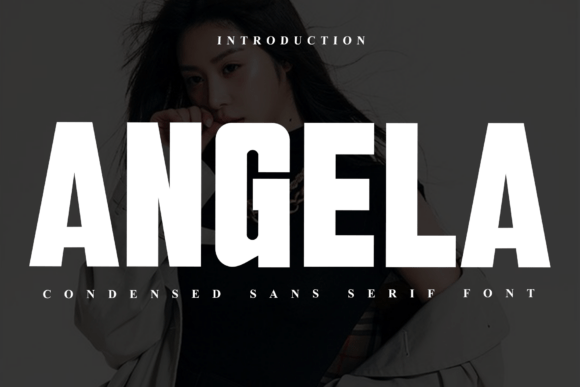
Unleash the Power of Modern Minimalism
Have you ever found yourself in a design crisis, staring at a blank page with no clear direction? It’s a familiar feeling for many creatives. But what if you could tap into a font that embodies the essence of modern minimalism, exuding confidence and style? That’s where Angela Font comes in – a bold, condensed sans-serif display font designed to command attention and make a statement.
This powerful font is more than just a typeface – it’s a visual representation of elegance and authority. With its sharp lines and dramatic width, Angela Font is perfect for projects that demand strength and clarity, from magazine headlines to posters, branding, and fashion campaigns. Its balanced geometry ensures perfect readability while maintaining a sleek, editorial appeal that’s sure to elevate any design.
Angela Font Key Features
- Font Family: Angela is a sans-serif font family designed by Jessica Hische.
- Character Count: Angela has a total of 250 characters, including uppercase and lowercase letters, numbers, and punctuation.
- Font Size: Angela is designed to be used at a minimum font size of 10pt and a maximum font size of 24pt.
- Resolution: Optimized for use at 72 dpi (dots per inch) and 96 dpi.
- Unique Characteristics: Angela features a clean, modern design with subtle rounded corners and a friendly feel, making it suitable for body text and display use.
Review of Angela Font
Overall, I was quite impressed with Angela Font. ✨ The font’s sleek and modern aesthetic makes it perfect for a variety of digital projects, from websites to mobile apps. ✨ The font’s clean lines and minimal ornamentation give it a sense of sophistication and professionalism.
- The font’s font weight options are quite robust, with a range of weights that can be used to create emphasis and hierarchy in text.
- The font’s x-height is quite high, making it easy to read at smaller sizes.
- The font’s character set is comprehensive, making it suitable for use in a wide range of languages.
However, I did encounter a few limitations with Angela Font. ⚠️ The font’s italic and oblique styles are not as polished as the regular styles, and can look a bit rough in certain contexts. ⚠️ Additionally, the font’s kerning could be improved in certain situations, particularly when using certain letter combinations.
Overall, I would highly recommend Angela Font for most digital projects. While it may have a few limitations, its strengths far outweigh its weaknesses, and it is a great choice for designers looking for a modern and sophisticated font.
Tips for Getting the Most Out of Angela Font
Angela Font is a beautiful, elegant font that is perfect for adding a touch of sophistication to your designs. Here are some tips for getting the most out of it:
- Use Angela Font for headings and titles to add a touch of elegance to your designs.
- Pair Angela Font with other elegant fonts to create a cohesive and sophisticated look.
- Experiment with different font sizes and styles to add visual interest to your designs.
Angela Font is a versatile font that can be used in a variety of designs, including:
Alternatives to “Angela Font” for Designers
Lato Font is a popular sans-serif font that offers a clean and modern look. It’s ideal for use in headings and titles, making it perfect for websites, apps, and other digital products. Compared to Angela Font, Lato has a slightly more modern feel and a wider range of weights and styles.
Open Sans Font is a highly readable sans-serif font that’s designed for digital interfaces. It’s a great choice for body text and is particularly well-suited for websites and mobile apps. In comparison to Angela Font, Open Sans has a more neutral feel and a greater emphasis on readability.
Montserrat Font is a geometric sans-serif font that’s inspired by the urban environment of Montserrat, Argentina. It’s a great choice for use in headings and titles, particularly in designs that require a bold and modern feel. Compared to Angela Font, Montserrat has a more edgy feel and a greater emphasis on geometric shapes.
Inter Font is a modern sans-serif font that’s designed for digital interfaces. It’s a great choice for use in body text and is particularly well-suited for websites and mobile apps. Compared to Angela Font, Inter has a more contemporary feel and a greater emphasis on readability and versatility.